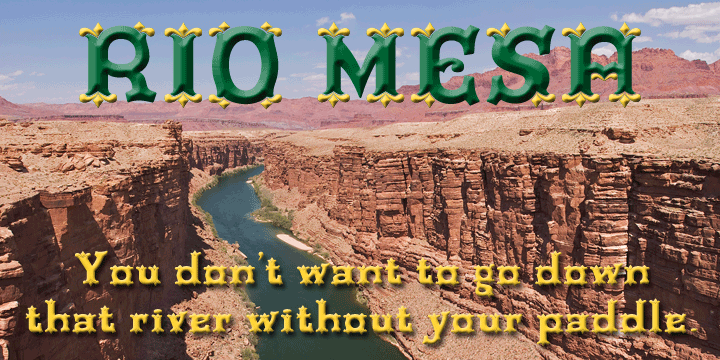
Rio Mesa™
Designed when: 2004
Rio Mesa
A FontMesa original, Rio Mesa, with it’s western flare, comes with an extra fill font containing the serifs only.